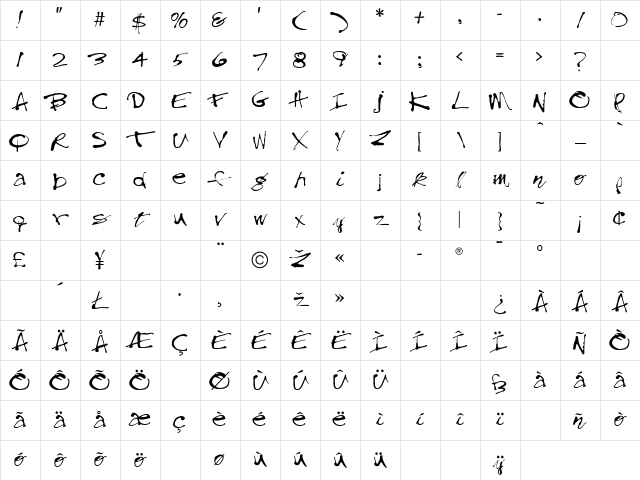
Threadneedle Regular Free Font
Threadneedle Regular
Foundry: Digitized by Dan X. Solo. Software by Dover Publications, Inc
Design Context for Threadneedle
Threadneedle is a composed and adaptable typeface that performs quietly and consistently across a wide range of design contexts.